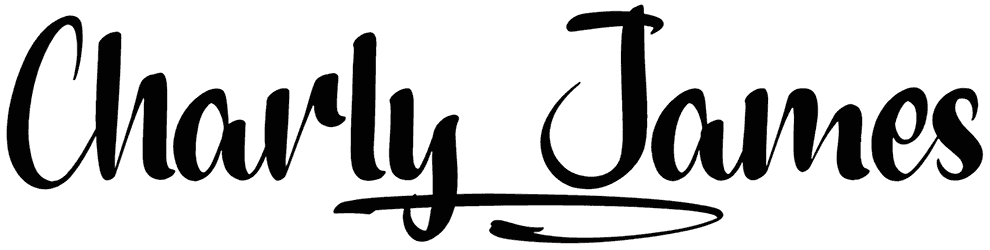
Charly James Font
Charly James adds an eloquent edge to your festive and personal designs that target the audience’s deep emotions. This handwritten font is decorated with human patterns and has the irregularities of an adult’s handwriting, making it somewhat illegible.
However, it can make your posters, advertisements, wedding cards, and invitations stand out even without numbers. It is an excellent solution for designers who want to be one step ahead of their competitors.